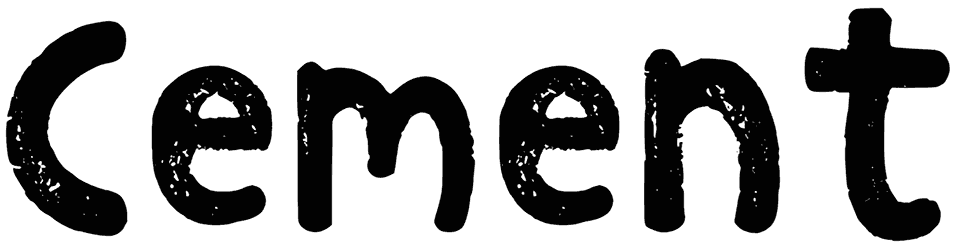
Cement Font
At first glance, it is not possible to understand what Cement exactly evokes in you, because you are facing a versatile font that is mostly used in informal projects, and depending on the surrounding environment, it can evoke different emotions such as happiness, nostalgia, and arouse old age.
This eroded font, which is developed based on script style, gives you a lot of opportunities to make your ideas come true. Using this adventure font, you can create lasting headlines, posters, and logos.